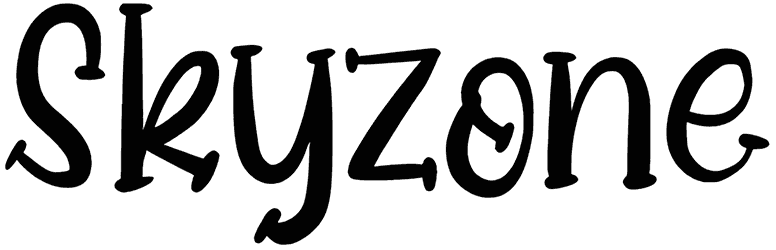
Skyzone Font
If you want a summery and soft look for your words, this cartoon font might be perfect for you. Every character in the Skyzone font is built big with handwritten marker effects on them that give a youthful, bright, and cheery feeling to your writing.
You can use this bold font for teenage movie and book titles, Halloween posters and flyers, channel banners, and graffiti texts, and have the perfect look through its round serifs and soft elements.